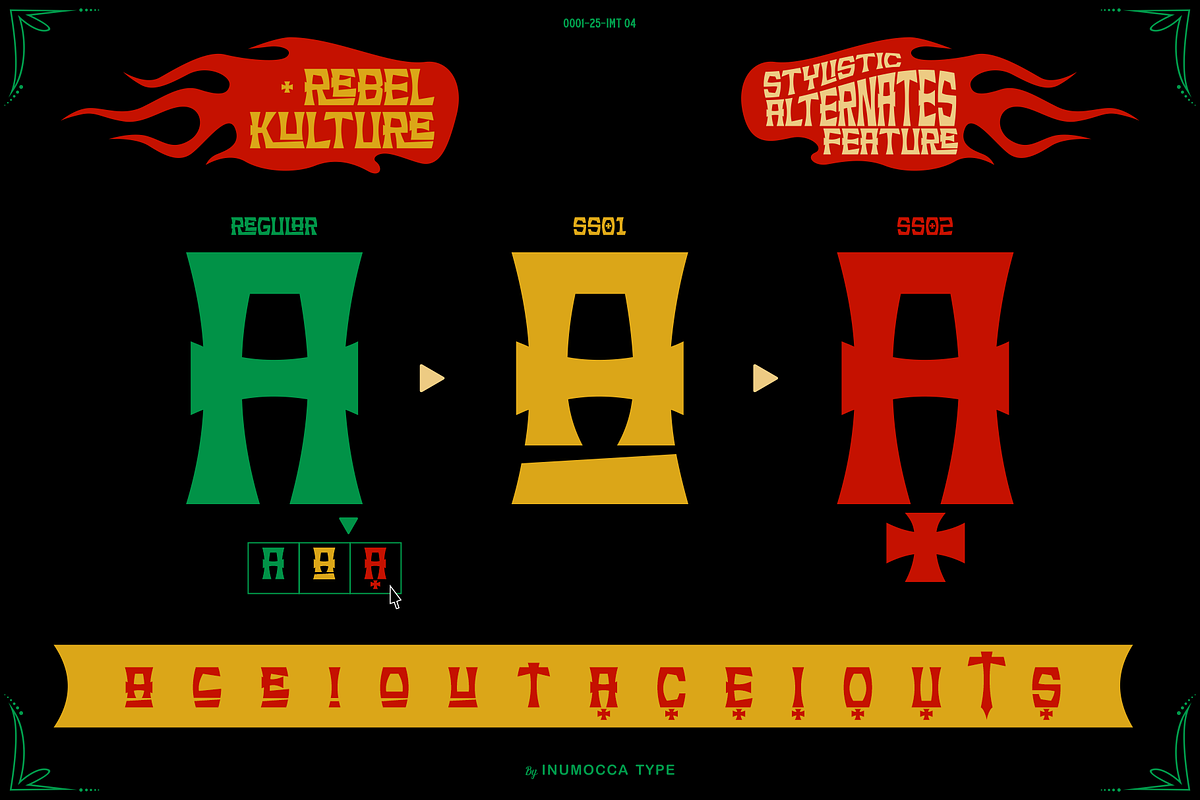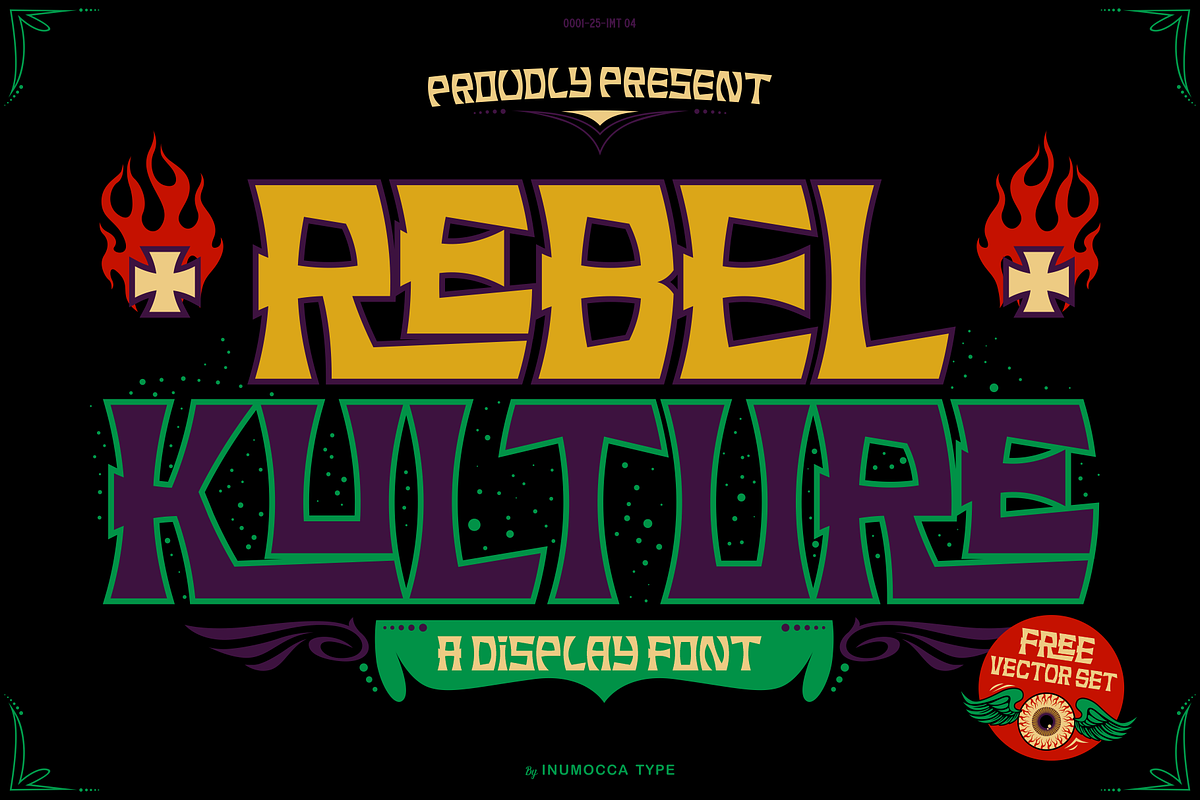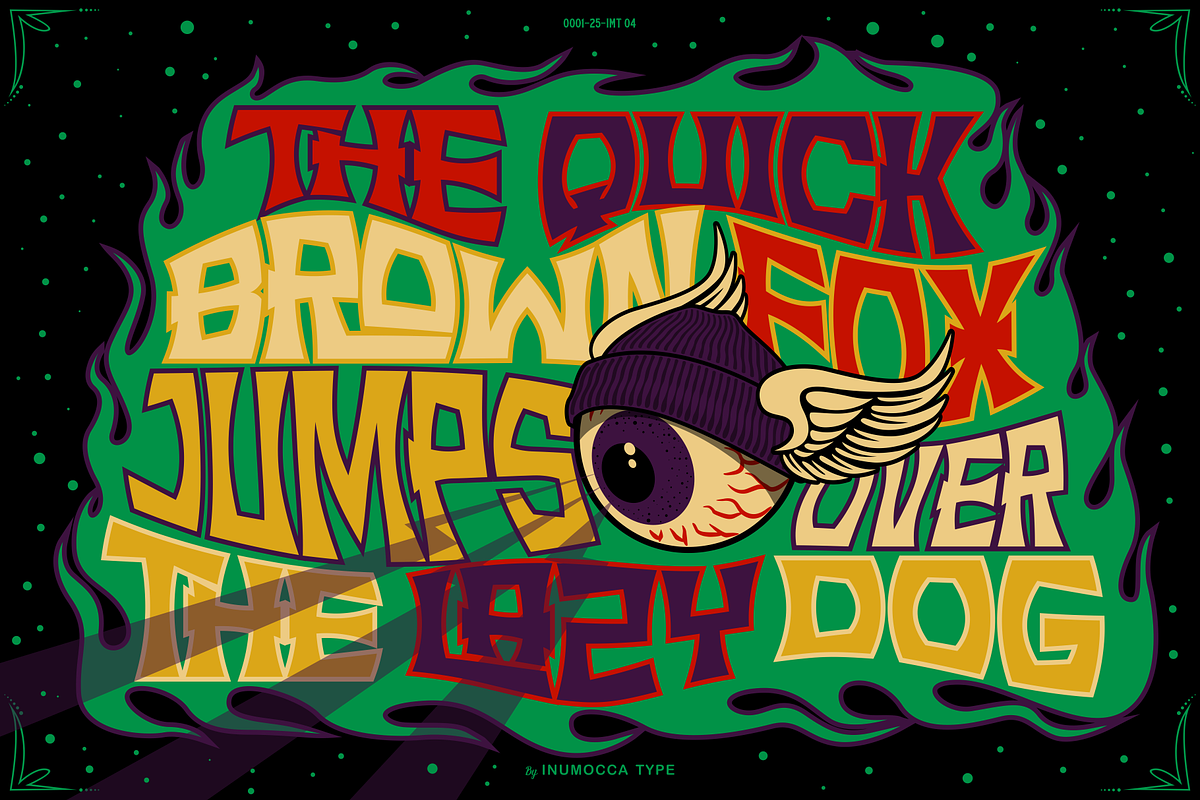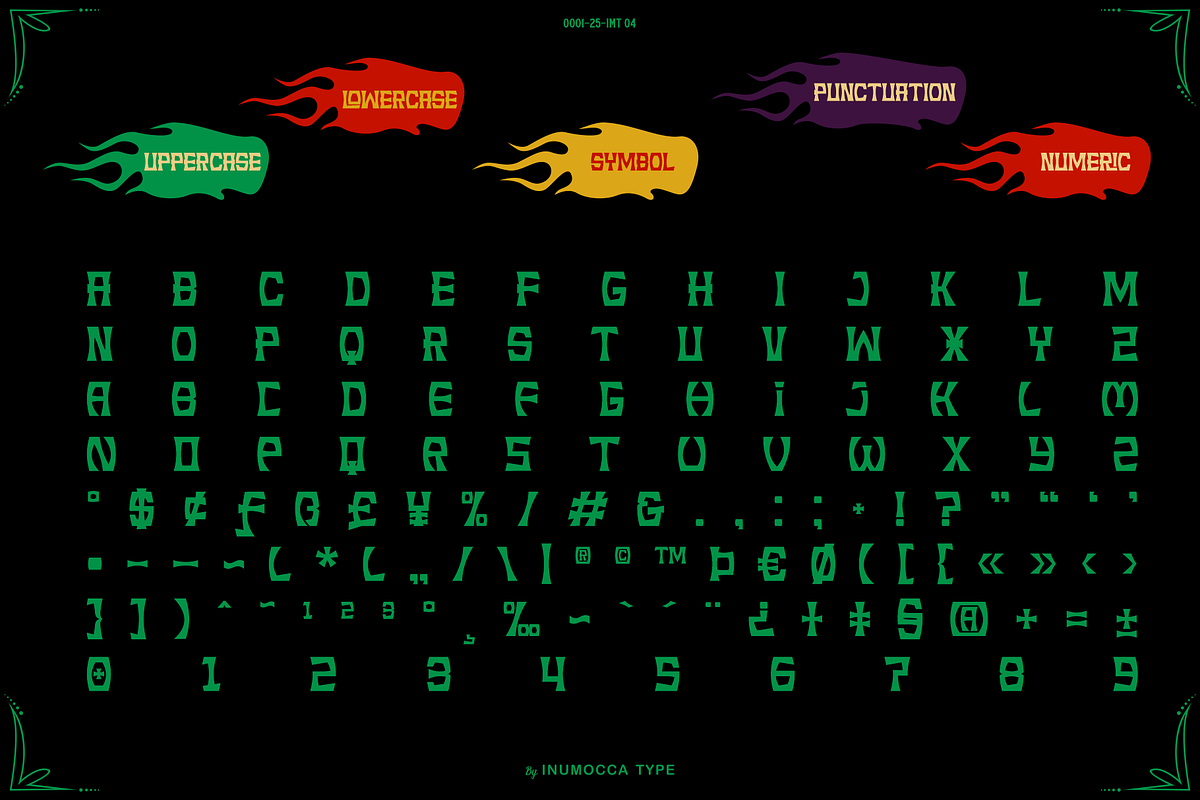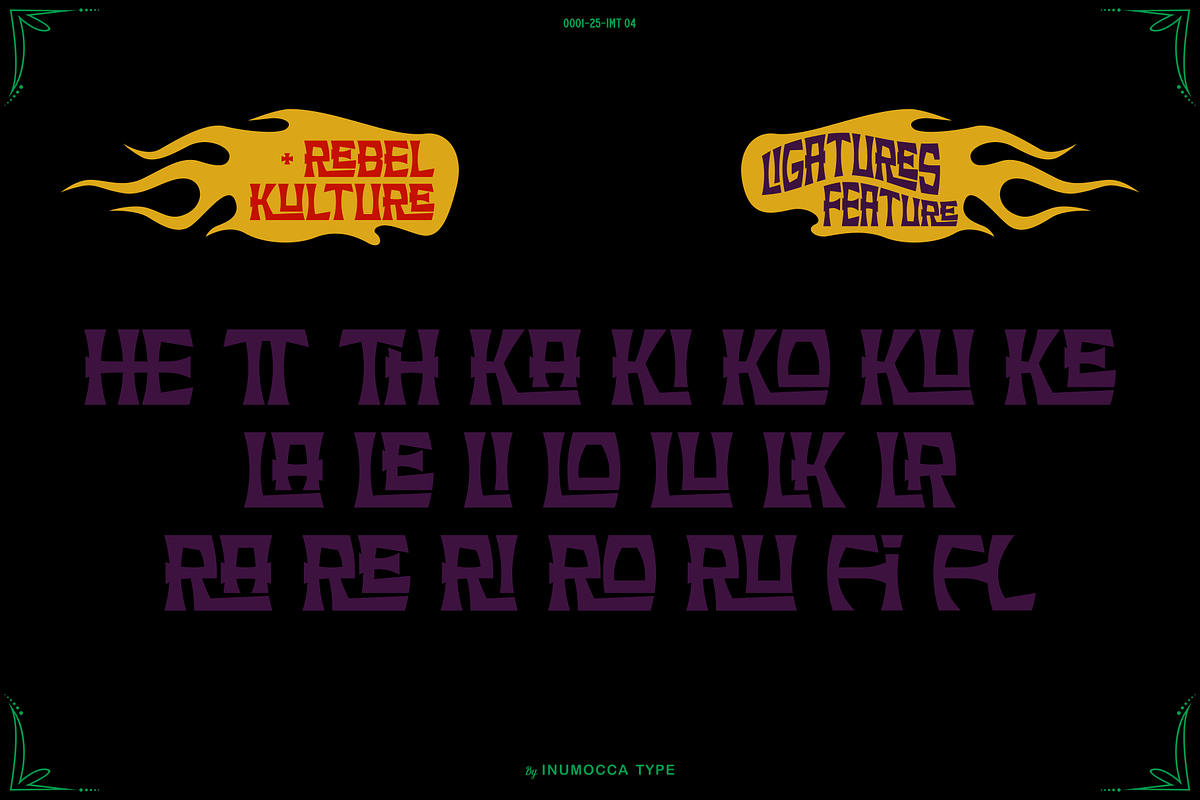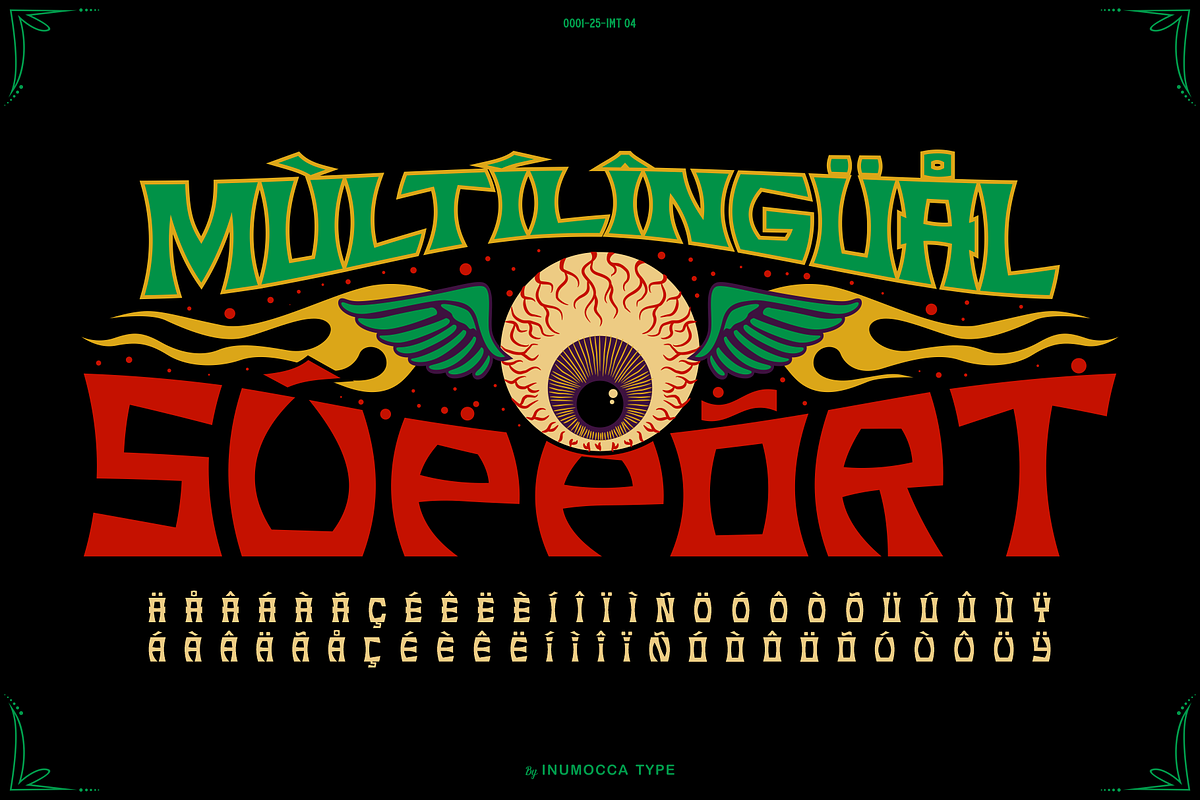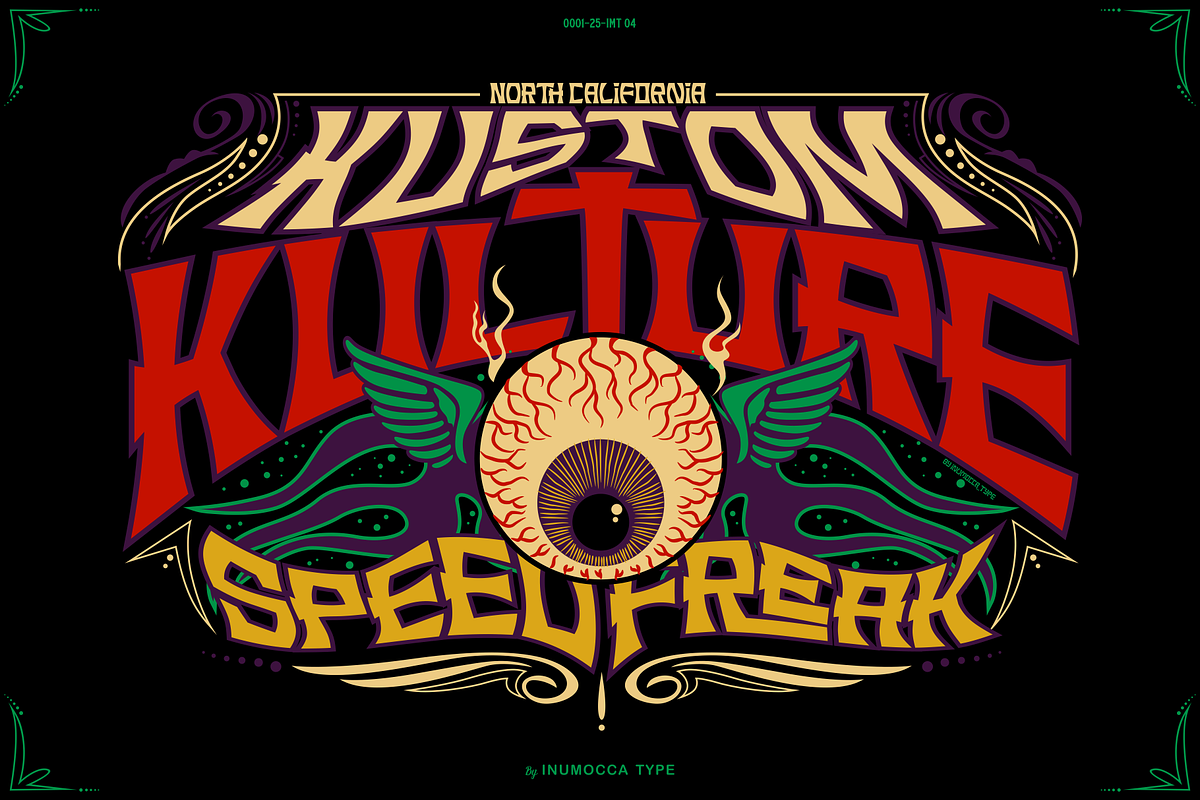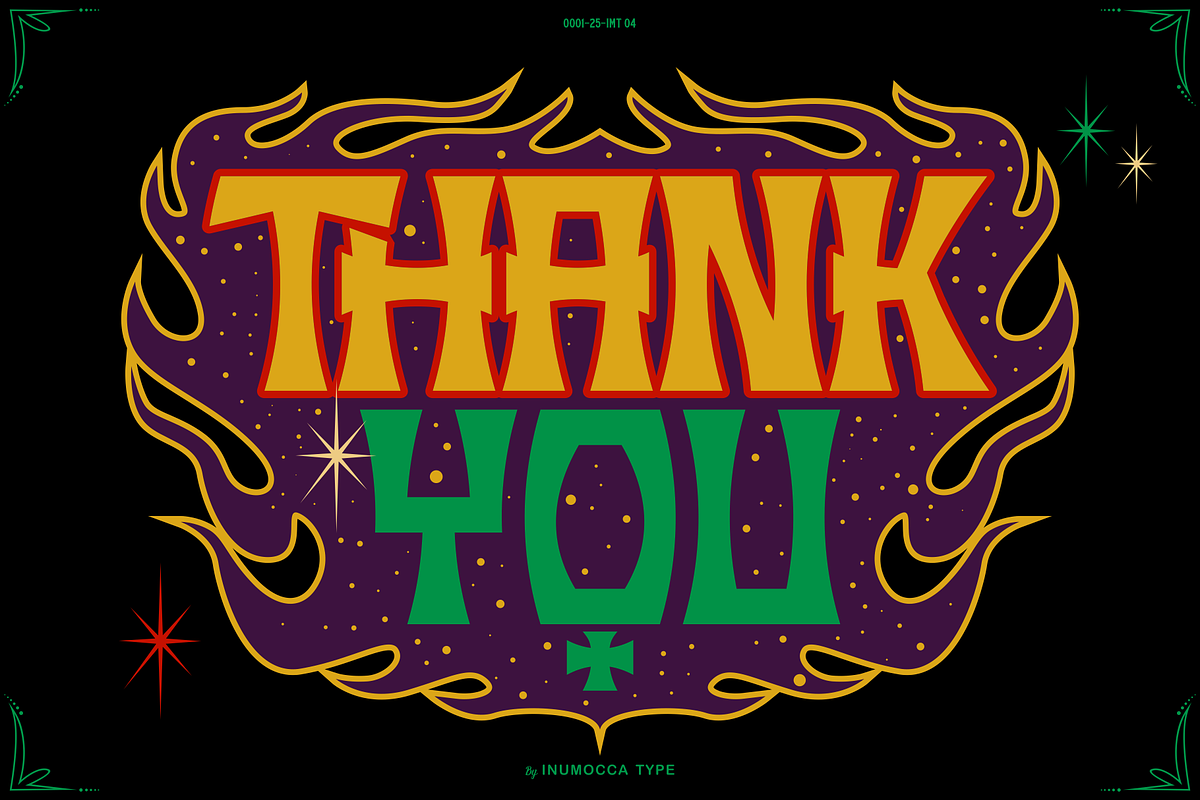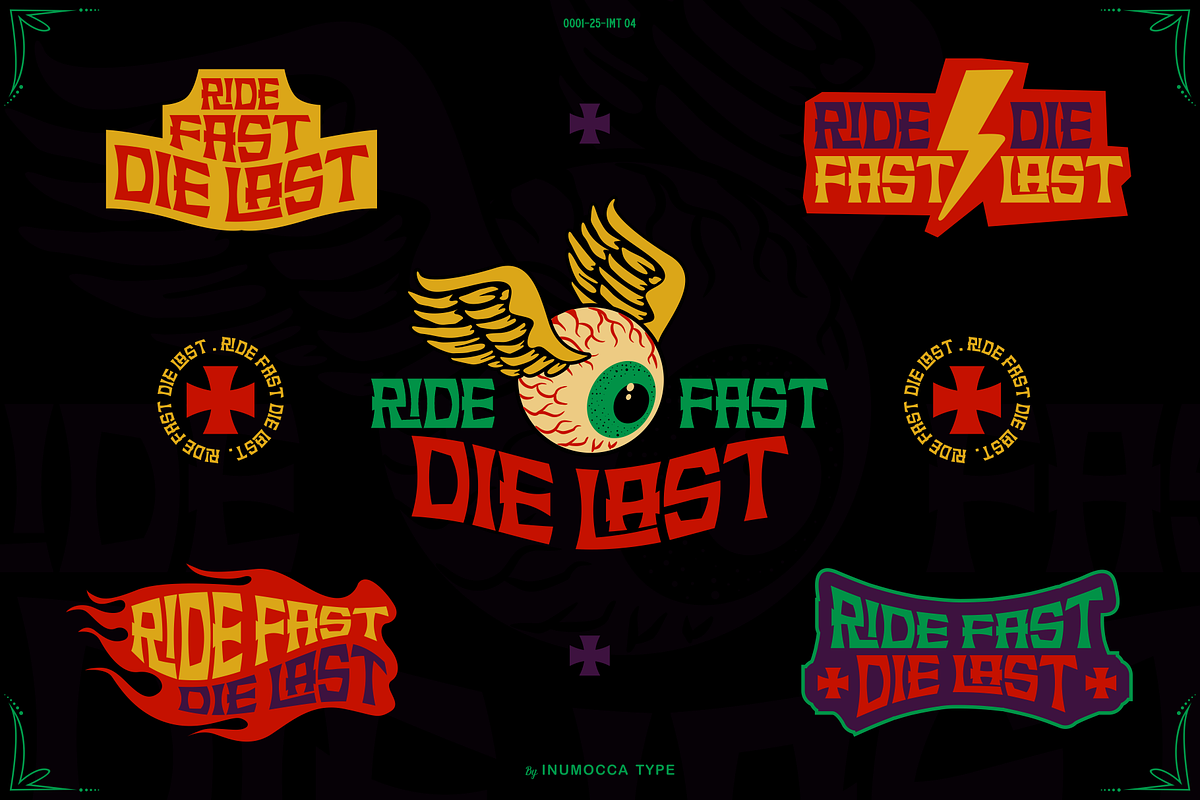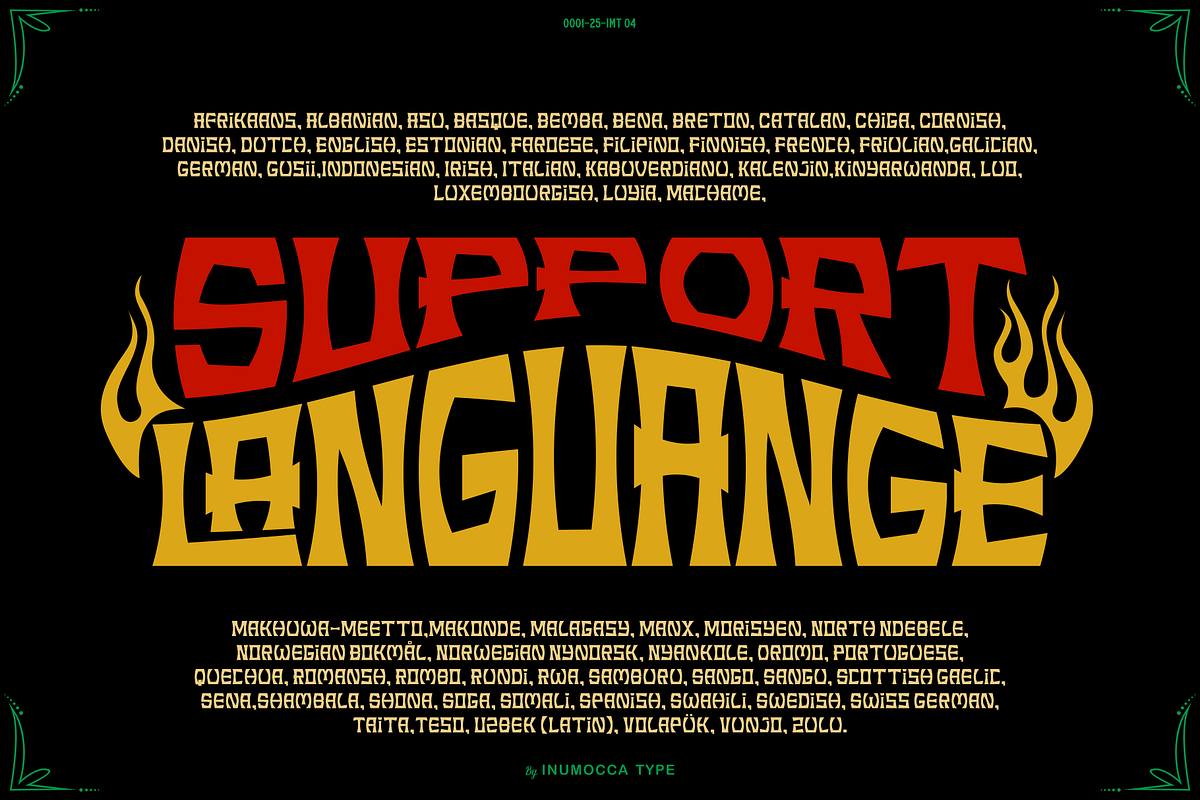
Rebel Kulture + Free Vector Set
Rebel Kulture is A Display Font, inspired by Kustom Kulture art and Cultural movement that emerged era 60s in California Focuses on Unique Modification and Customization of vehicle especially cars and motorbikes and the lifestyle . i present it in shape and characteristic for make Profesional Your Logos, Branding, Headline, Badges, Body of text, packaging design, poster for event, lettering, you can adding Flames, Stripes and other patterns, because visual appeal is essential.
- Unique glyphs
- Multilingual Characters
- UPPERCASE
- Numeric
- Symbol
- Punctuation Character
- Stylistic Alternates (ss01)